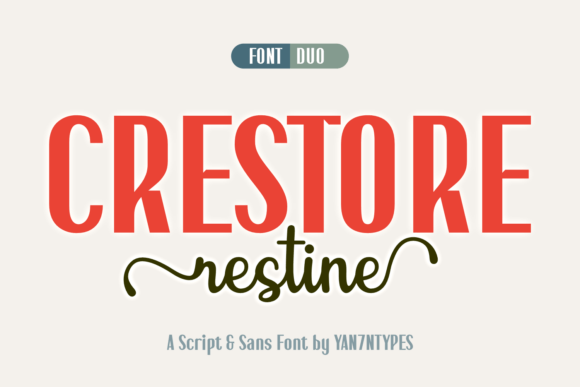
Unleash Your Creativity with the Crestore Restine Duo Font
Have you ever found yourself staring at a blank canvas, searching for the perfect combination of styles to bring your design to life? It’s a moment we’ve all experienced, and it’s exactly what inspired the creation of the Crestore Restine Duo Font – a groundbreaking dual font union that brings together two complementary styles in one sleek entity.
This remarkable font pairing combines the bold, clean sans-serif display typeface of Crestore with the flowing, elegant script typeface of Restine, offering endless creative possibilities for designers. Whether you’re working on a wedding invitation, a stylish branding project, or social media graphics, the Crestore Restine Duo Font is the perfect tool to craft designs that are both striking and beautifully refined, leaving a memorable impression on your audience.
Crestore Restine Duo Font Key Features
- Font Family: Crestore Restine Duo Font is a unique, dual-script font that combines Cyrillic and Latin characters.
- Unique Characteristics: Crestore Restine Duo Font features a distinctive, hand-drawn design with a mix of geometric and organic elements, making it ideal for creative and design-intensive projects.
- Character Count: The font includes a comprehensive character set, with over 500 glyphs, including Cyrillic and Latin characters, punctuation marks, and symbols.
Crestore Restine Duo Font Review
Overall, I think Crestore Restine Duo Font is a solid choice for designers looking for a clean and modern sans-serif font. Here are some things that work well:
- ✨ Versatility: Crestore Restine Duo Font is highly versatile and works well in a variety of settings, from headlines to body text.
- ✨ Legibility: The font is highly legible, making it easy to read even at small sizes.
- ✨ Customization: The font comes with a range of weights and styles, allowing designers to customize their text to suit their needs.
- ⚠️ Limited character set: While the font has a wide range of weights and styles, the character set is limited compared to other fonts.
- ⚠️ May not be suitable for complex text: Due to its clean and modern design, Crestore Restine Duo Font may not be the best choice for complex text or text with a lot of small details.
Overall, I think Crestore Restine Duo Font is a great choice for designers who want a clean and modern sans-serif font. While it may have some limitations, its versatility and legibility make it a solid choice for a variety of projects.
Crestore Restine Duo Font is ideal for:
Business cards and letterheads
Magazine and book titles
Wedding and event signage